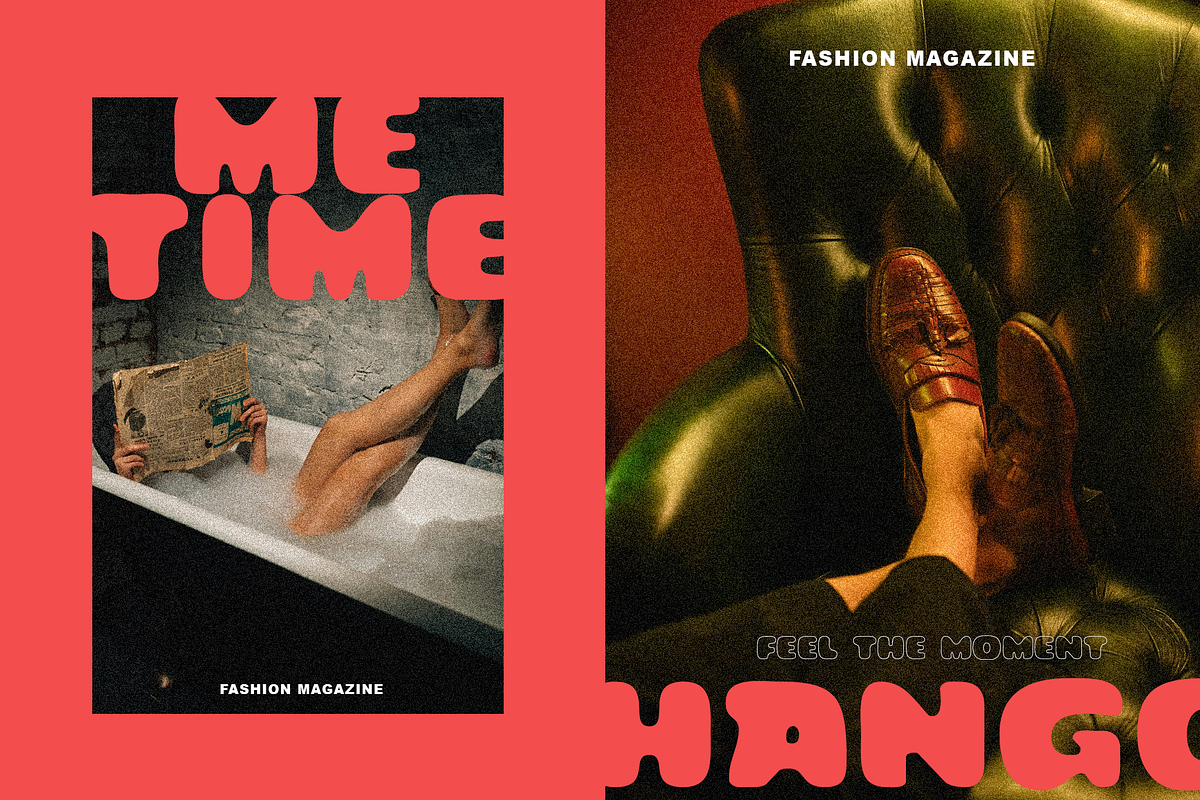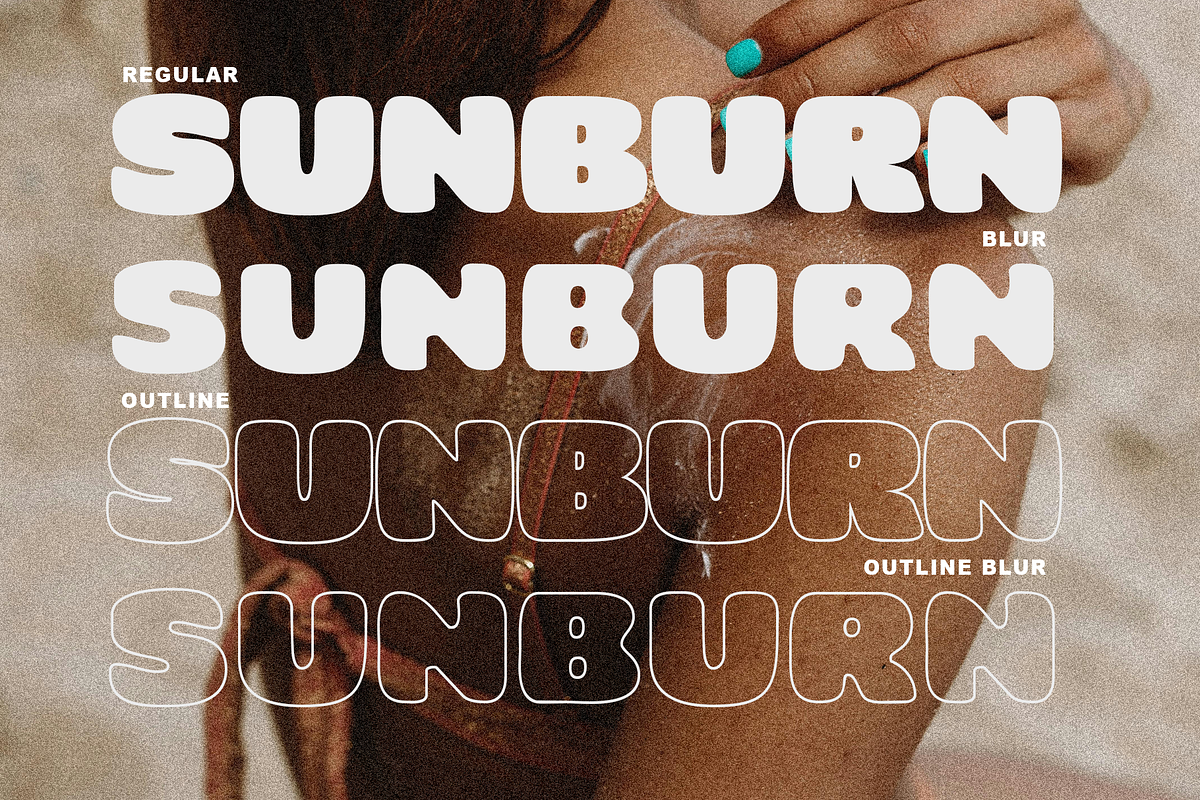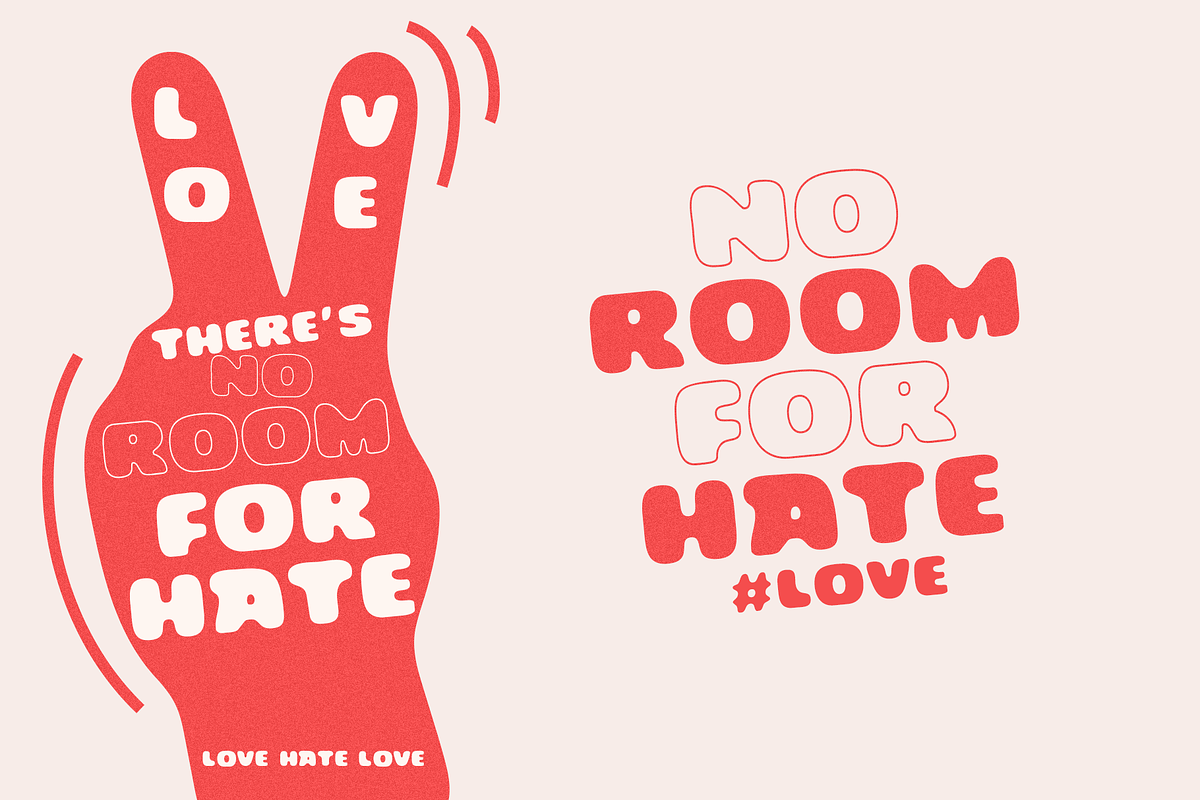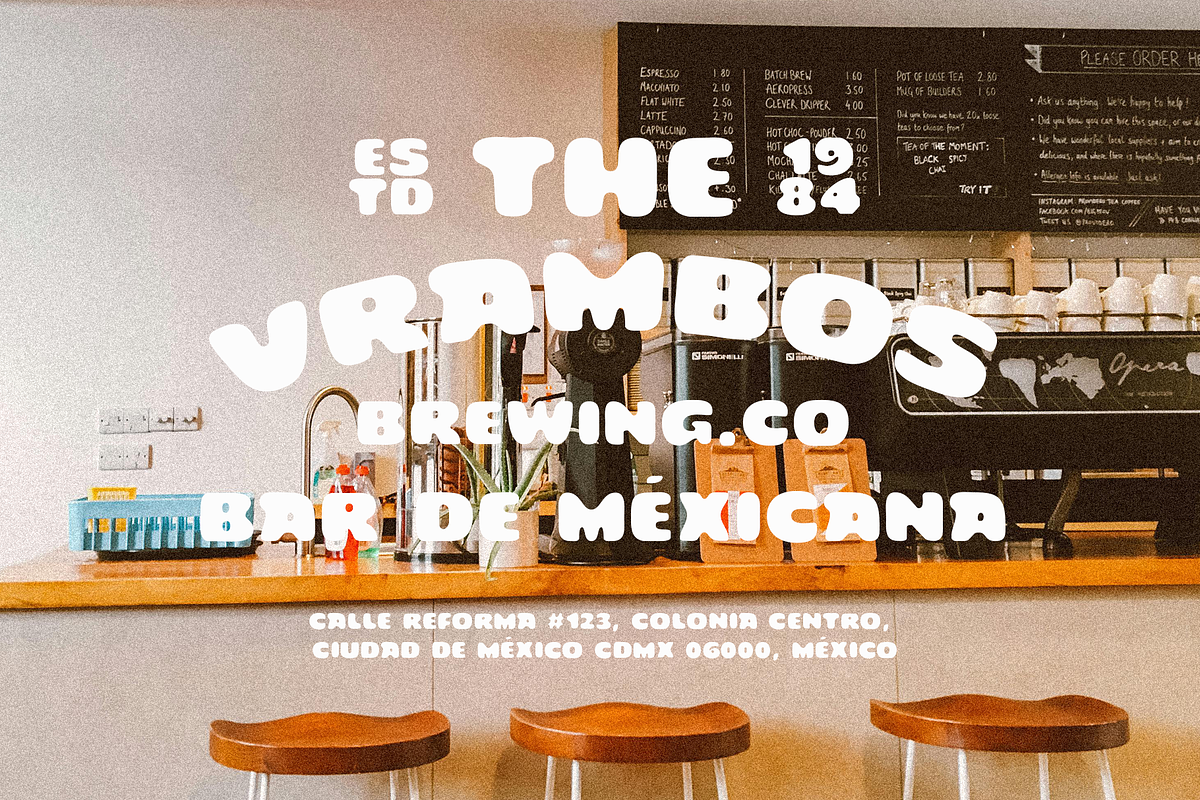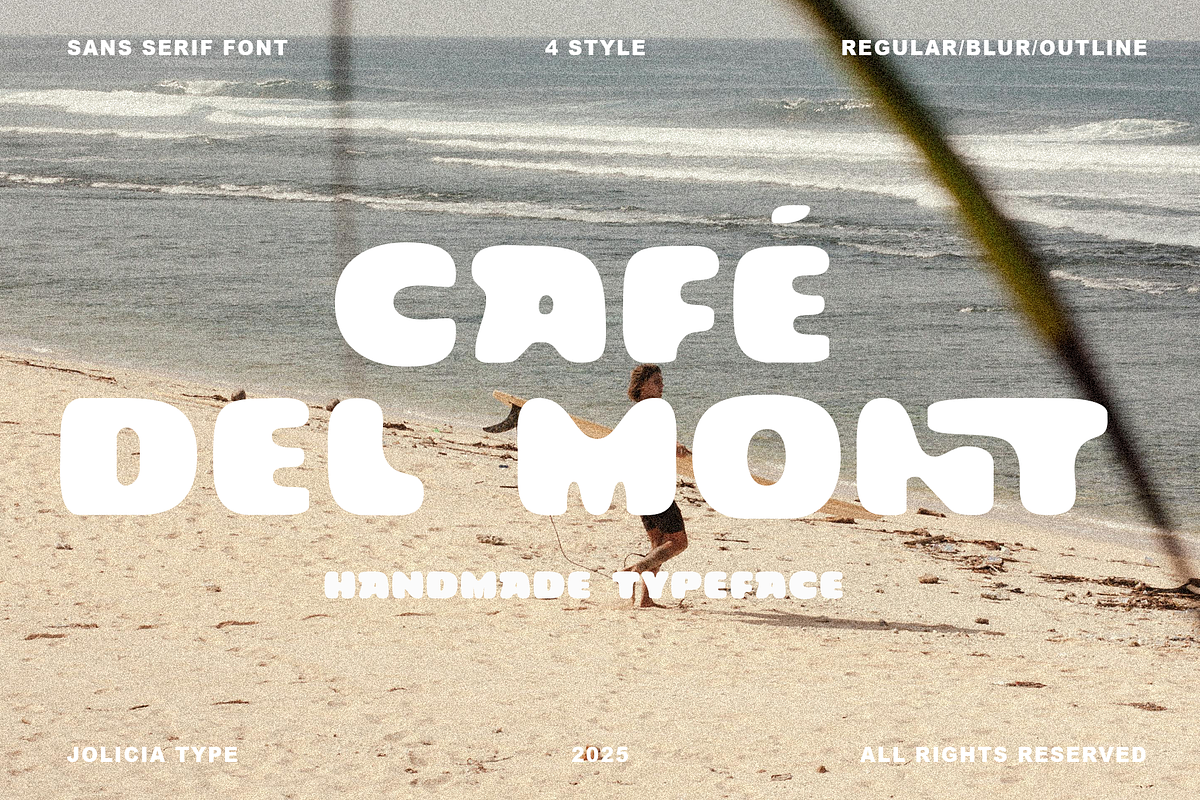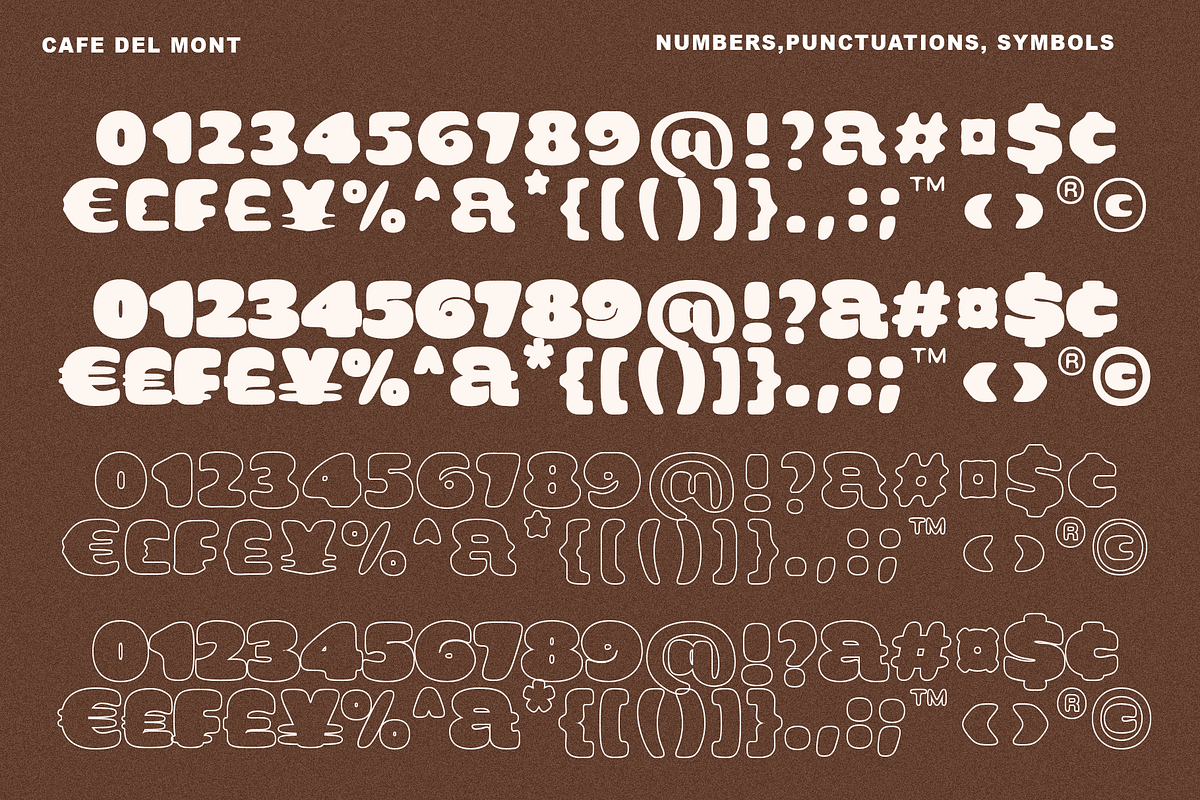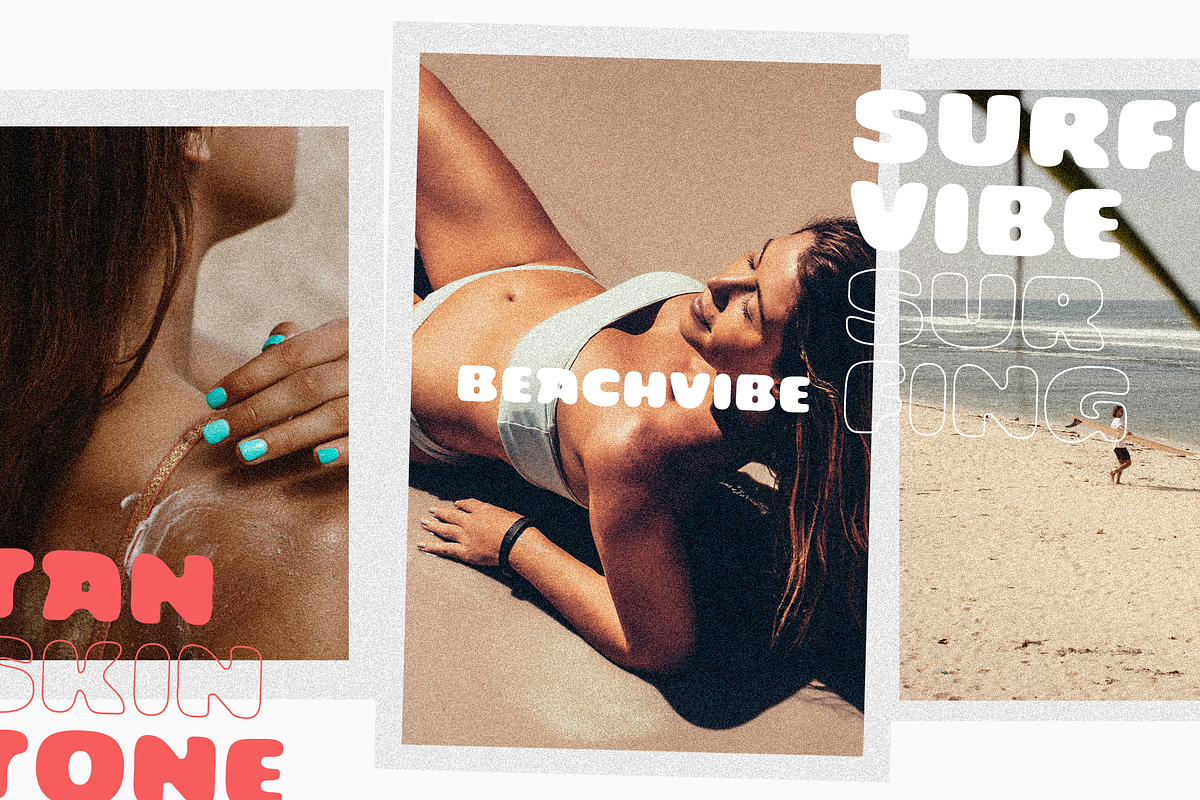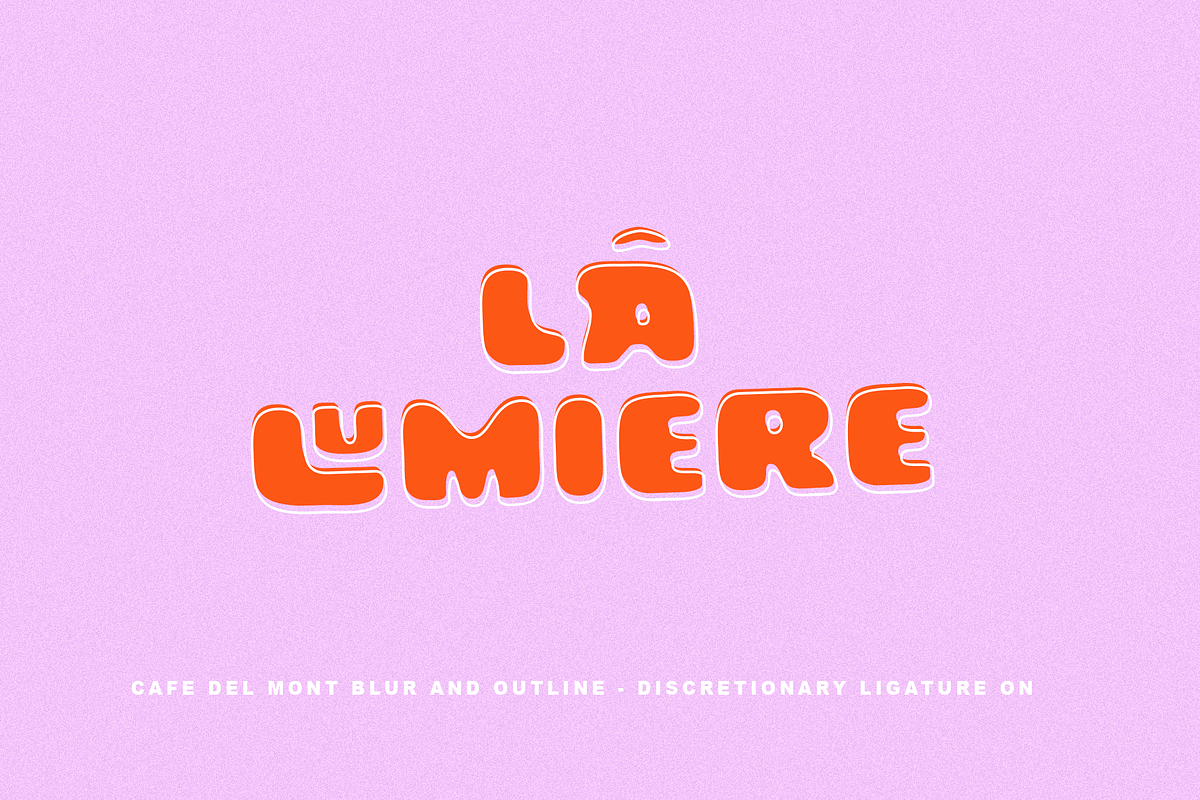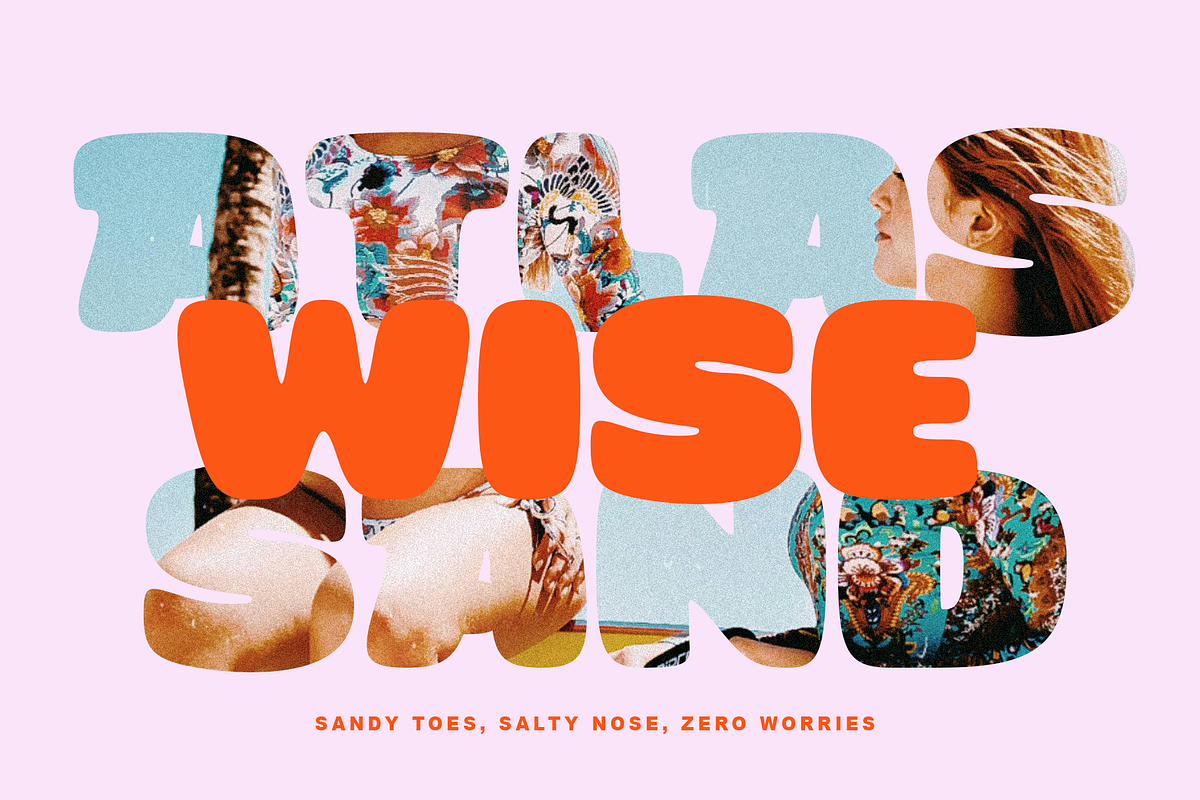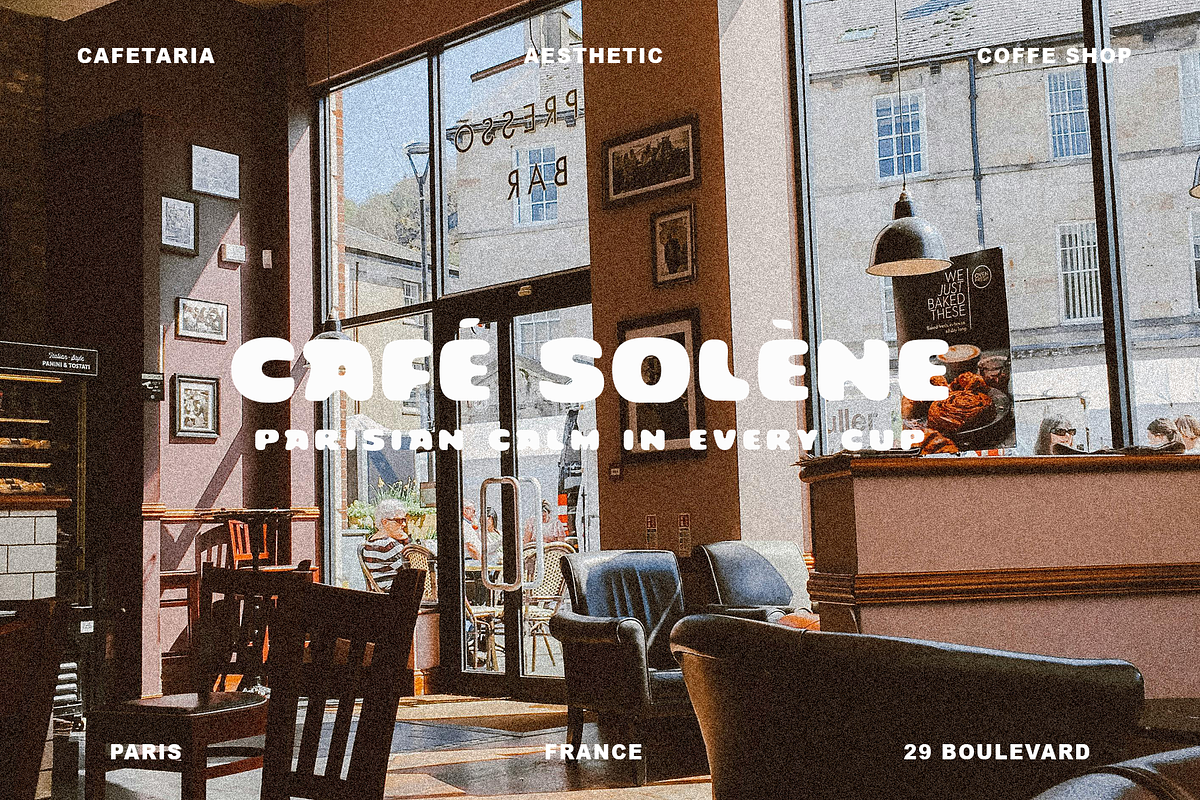
Cafe Del Mont | Handwritten Sans
Cafe Del Mont is a bold handwritten sans-serif font infused with a warm organic vintage vibe. Crafted to look naturally handwritten with confident strokes, it delivers a friendly yet strong character—perfect for designs that seek an authentic and approachable feel. This font comes in 4 versatile styles:
- Blur
- Outline
- Outline Blur
Each version offers unique personality—from clean boldness to soft, retro blur effects. The outline styles add an extra layer of charm, making this typeface ideal for café branding, organic product packaging, nostalgic signage, or lifestyle posters with a handmade touch. Cafe Del Mont is the perfect blend of vintage flair and modern usability, giving your typography a voice that feels real and heartfelt.